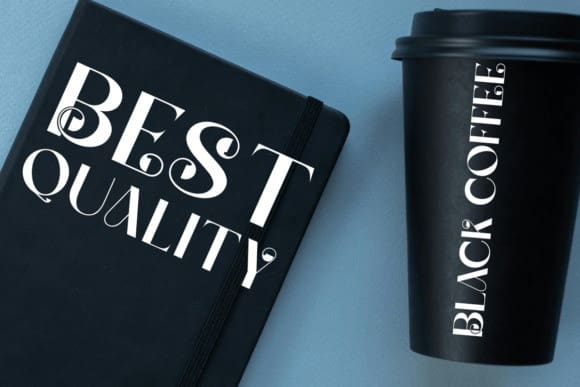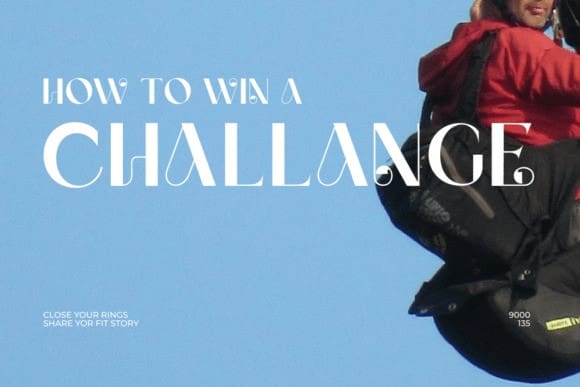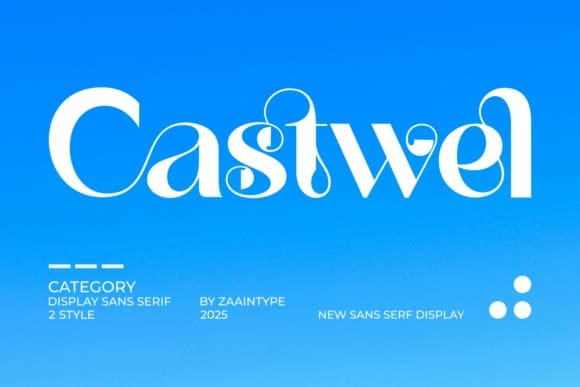
Castwel Font
Castwel Font is a sans-serif font designed with a clean and professional look. It comes in two main variations: Regular, which is stable and easy to read, and Oblique, which adds a dynamic and modern touch. With its sleek yet strong character, Castwel Font is perfect for various design needs, from branding and editorial to elegant digital displays.
Use Castwel Regular for a formal and neat appearance, or Castwel Oblique for a more expressive and energetic feel. Its versatility makes Castwel the perfect choice for designers who prioritize clarity and style